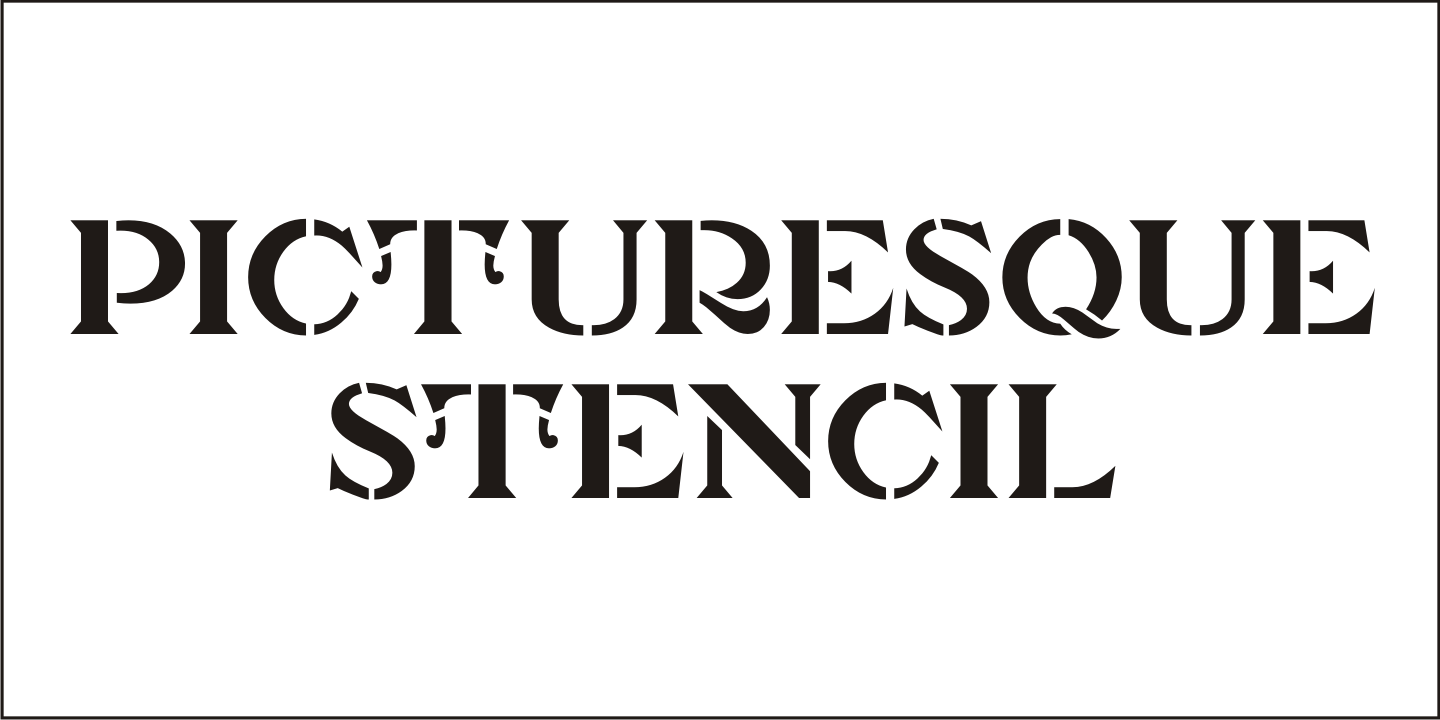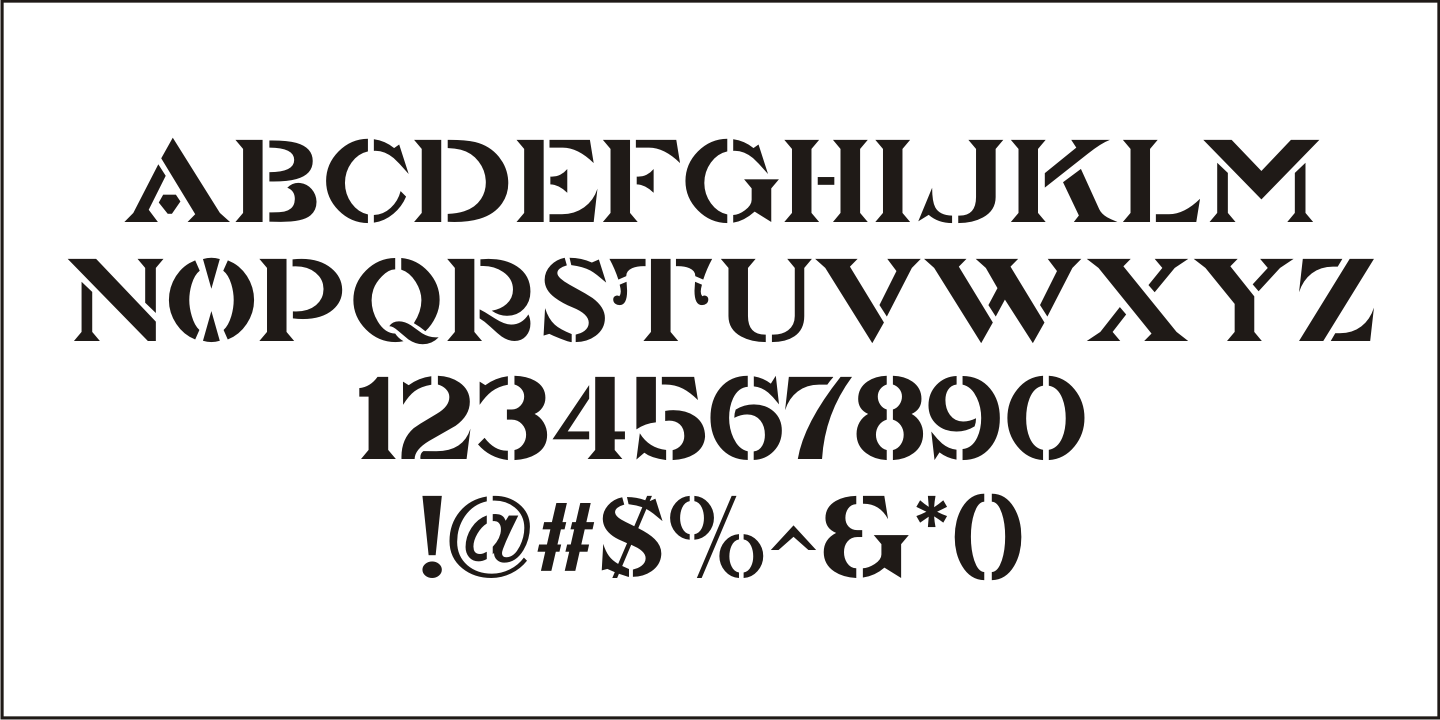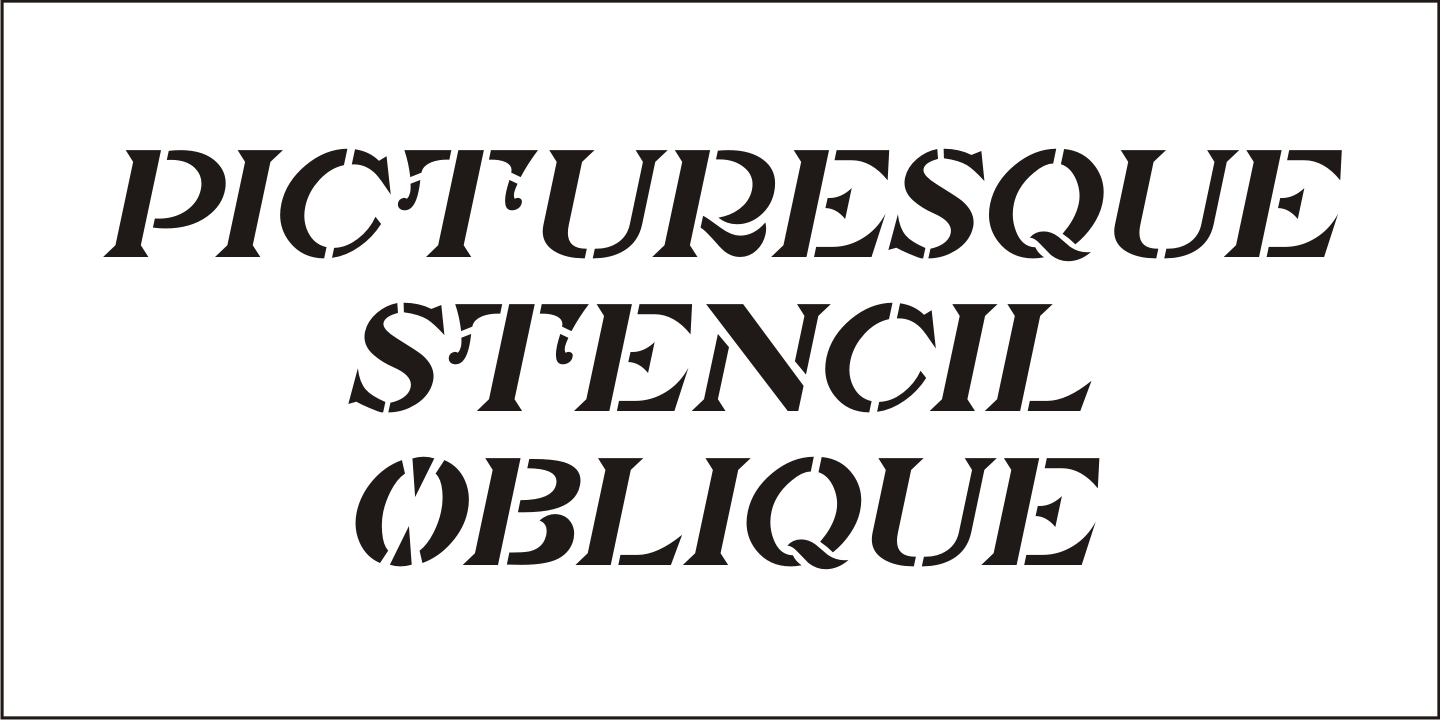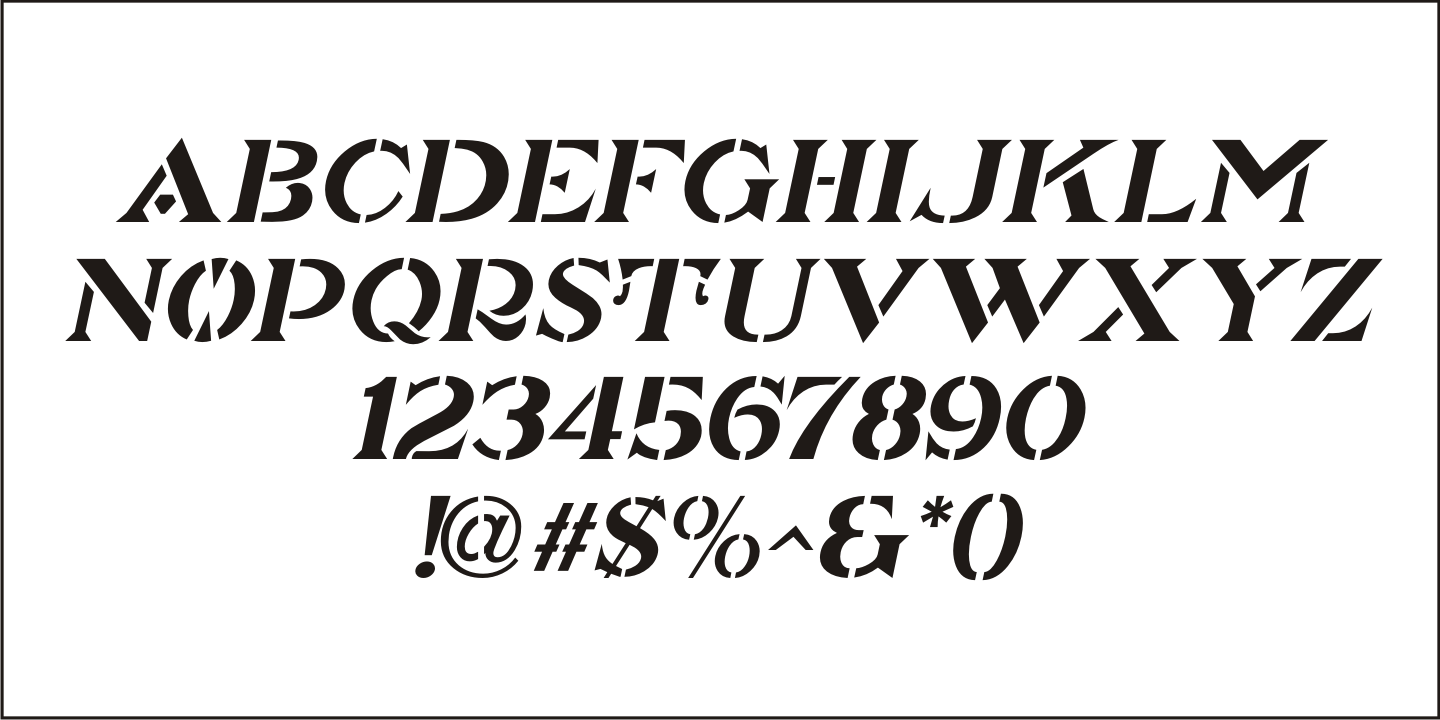
Picturesque Stencil
Picturesque Stencil JNL gets its name and design from the title of a circa-1920s children's stencil activity book entitled 'Dean's Picturesque Stencil Book No. 10 - Series 75'; published by the F. Weber Company of Philadelphia and printed in England by Dean.
The book's stenciled title was hand lettered in a bold Roman design in the Art Nouveau style.
Picturesque Stencil JNL is available in both regular and oblique versions.